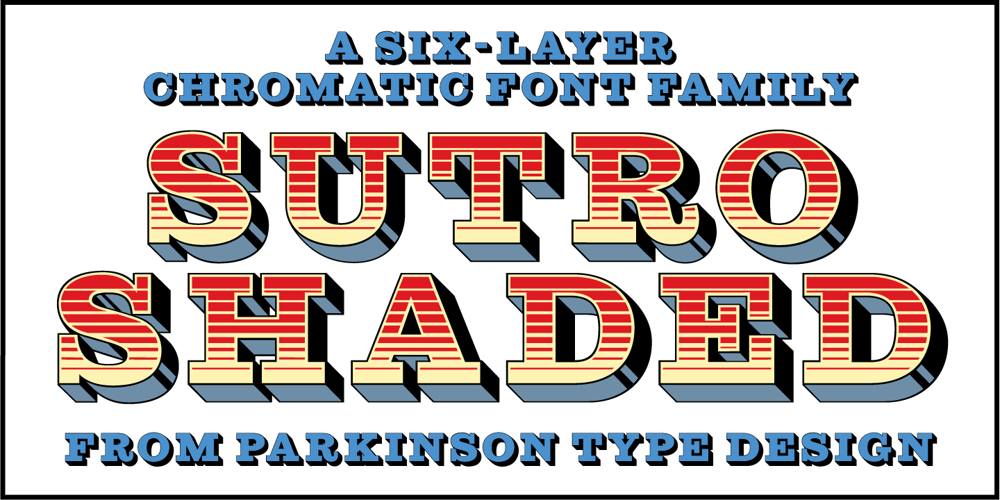
Sutro Shaded
Sutro Shaded Font Family was designed by Jim Parkinson and published by Parkinson. Sutro Shaded contains 6 styles and family package options. My affection for Slab Serifs began in the early 1960s in Kansas City when Rob Roy Kelly was at the Kansas City Art Institute, teaching and writing his book on American Wood Type. I got to know him just well enough to gain access to his fabulous collection of wood type and wood type catalogs. Later, in the1970s, I tried to re-create a Nebiolo Egiziano for Roger Black at New West magazine. And again for Roger, in the 1980s, I designed a Slab Serif logo for Newsweek Magazine. Finally, in 2003, designed the Sutro Family. There were things I didn’t like about it, so, over time, I’ve been adding some things and dressing it up a little. Sutro Shaded has existed for a few years as a one color, outlined, drop-shadowed display font. It seemed like it was just dying for a little color. I added five more fonts: Fill, Gradient, Hatching, Rules and HiLite. These fonts can be used in different combinations to achieve various effects. There is a downloadable SUTRO SHADED USER MANUAL PDF in the Gallery section for this family.